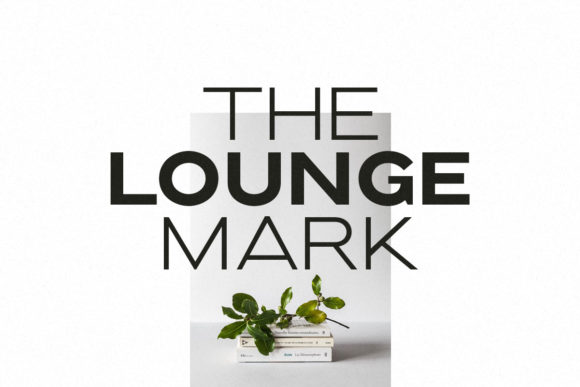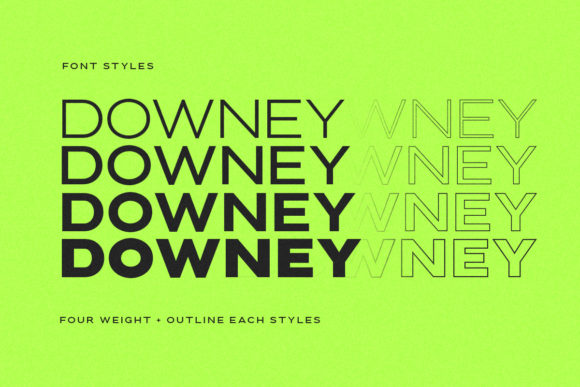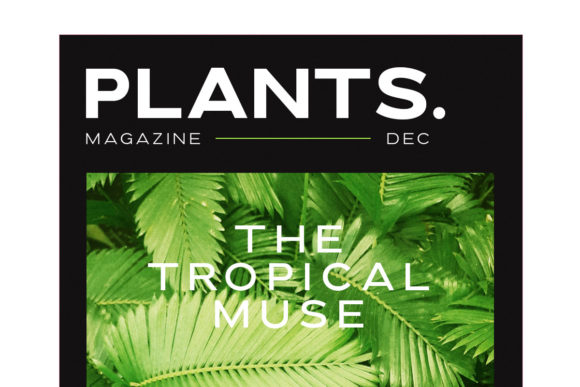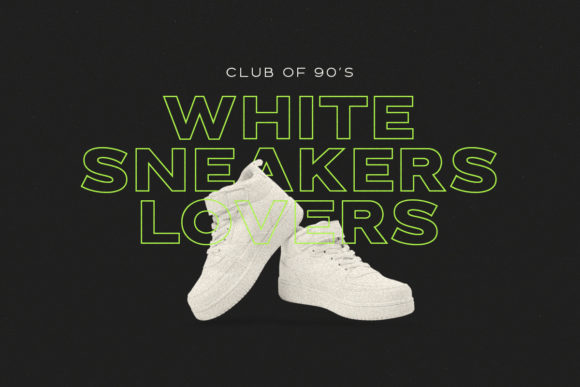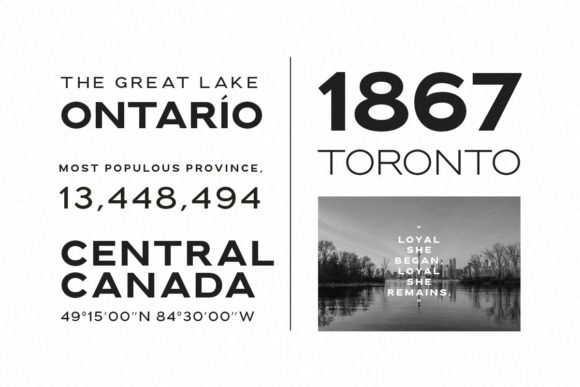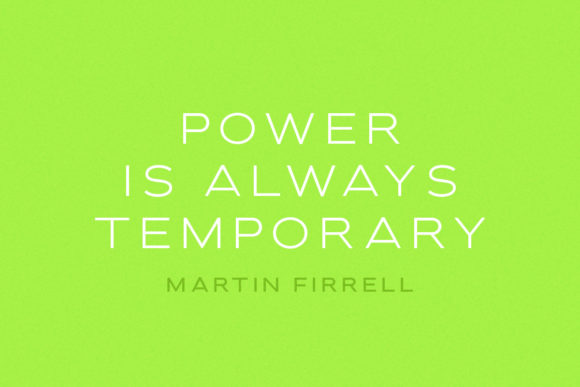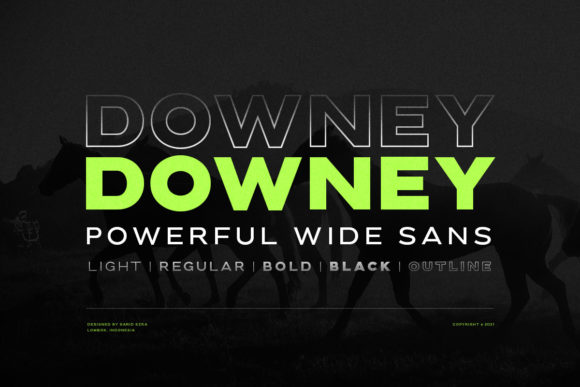
Discover the Versatility of Downey Font: A Casual and Essential All-Caps Sans Serif
Are you on the hunt for a font that exudes a perfect blend of casualness and professionalism? Look no further than the Downey Font. This all-caps sans serif font is making waves in the design community for its slightly wide form and strong appearance, making it an ideal choice for a wide range of projects and designs. In this article, we’ll dive into the features, benefits, and uses of the Downey Font, and explore why it’s becoming a favorite among designers and crafters.
What is Downey Font?
Downey Font is a casual and essential all-caps sans serif font that boasts a unique character. Its slightly wide form gives it a distinctive look that’s both modern and approachable. The strong appearance of this font makes it perfect for grabbing attention and conveying confidence. Whether you’re working on a title, quote, cover, business card, or any other design project, Downey Font is an excellent choice.
Key Features of Downey Font
• All-caps design: Downey Font is designed specifically for all-caps text, making it perfect for titles, headings, and emphasis.
• Sans serif: The clean and minimalist sans serif design ensures that the font remains clear and legible, even at smaller sizes.
• Slightly wide form: The font’s slightly wide form gives it a unique character that’s both modern and approachable.
• Strong appearance: Downey Font exudes confidence and professionalism, making it perfect for designs that require a bold statement.
Benefits of Using Downey Font
So, why should you choose Downey Font for your next design project? Here are just a few benefits of using this versatile font:
• Versatility: Downey Font is suitable for a wide range of projects and designs, from titles and quotes to covers and business cards.
• Legibility: The clean and minimalist design ensures that the font remains clear and legible, even at smaller sizes.
• Uniqueness: The font’s slightly wide form and strong appearance give it a unique character that sets it apart from other sans serif fonts.
• Easy to pair: Downey Font pairs well with a variety of other fonts, making it easy to create a cohesive design.
Uses of Downey Font
Downey Font is a versatile font that can be used in a wide range of design projects, including:
• Titles and headings: Use Downey Font to create bold and attention-grabbing titles and headings.
• Quotes and testimonials: The font’s strong appearance makes it perfect for highlighting quotes and testimonials.
• Covers and packaging: Downey Font is an excellent choice for book covers, magazine covers, and packaging design.
• Business cards and stationery: Use the font to create bold and professional business cards and stationery.
Tips for Using Downey Font
Here are a few tips for getting the most out of Downey Font:
• Use it sparingly: While Downey Font is a versatile font, it’s best to use it sparingly to avoid overwhelming the design.
• Pair it with other fonts: Experiment with pairing Downey Font with other fonts to create a unique and cohesive design.
• Adjust the size and color: Play around with different sizes and colors to find the perfect combination for your design.
In conclusion, Downey Font is a casual and essential all-caps sans serif font that’s perfect for a wide range of design projects. Its slightly wide form and strong appearance make it a versatile font that can be used for titles, quotes, covers, business cards, and more. With its clean and minimalist design, Downey Font is an excellent choice for designers and crafters looking for a bold and professional font.
Whether you’re a seasoned designer or just starting out, Downey Font is definitely worth adding to your font library. So why not give it a try and see how it can elevate your designs?